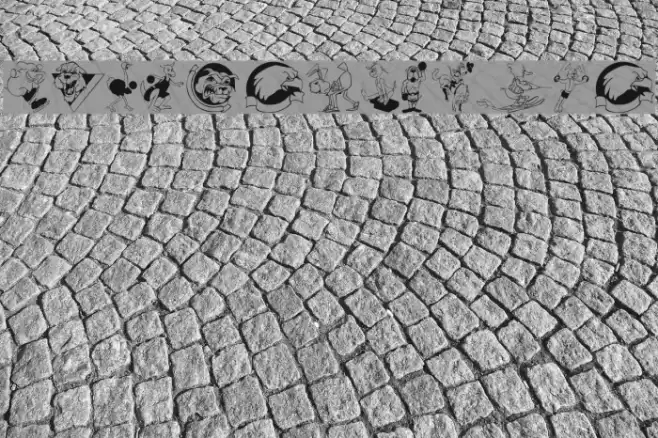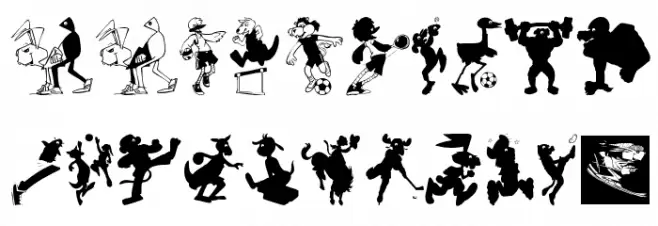
SportsAnimals Font
SportsAnimals Description
A playful and whimsical collection of cartoon-style animal illustrations engaged in various sports activities, featuring exaggerated expressions and dynamic poses with bold outlines and minimal shading.
Cartoon animal sports illustrations with energetic, playful style from Uncategorized fonts.
- Proposed Projects: Children’s books, sports event posters, mascot design, educational materials, playful branding.
- Overall Style: Decorative, Playful, Cartoonish
- Use Case: Logos, Posters, Children’s materials, Mascots